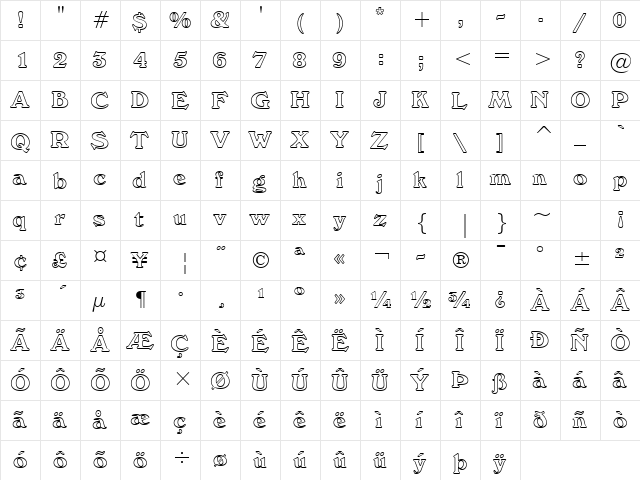
ff48 Regular
Design Context for ff48 Typeface
ff48 takes a measured approach to typography — its balanced proportions and neutral character make it a reliable workhorse for both digital and print work.